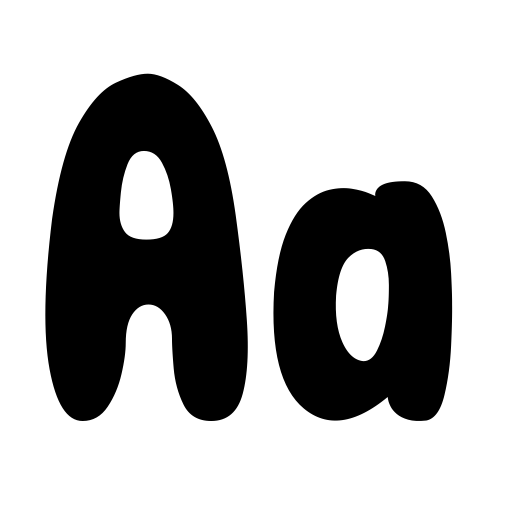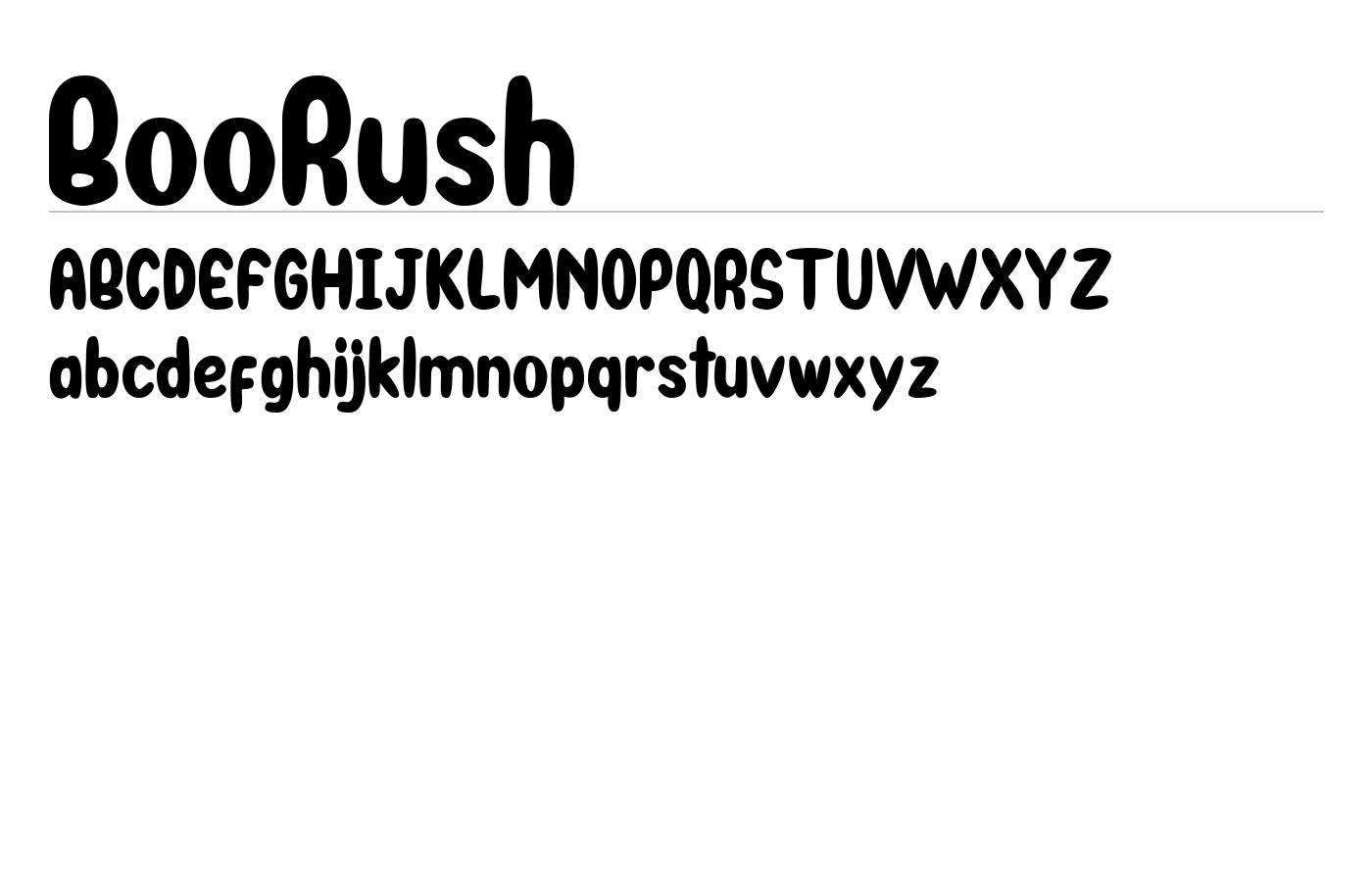
BooRush is a playful, bold sans-serif font with rounded, chunky letterforms that give it a friendly and approachable feel. Its consistent stroke weight and slightly condensed width make it ideal for eye-catching headlines and branding that wants to convey fun and creativity. This font works well for children's products, casual branding, and any design seeking a warm, informal vibe.
BooRush Font
About BooRush Font